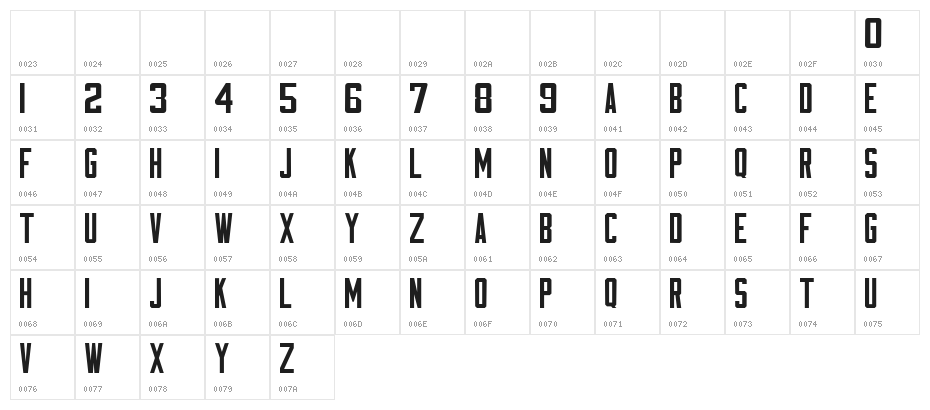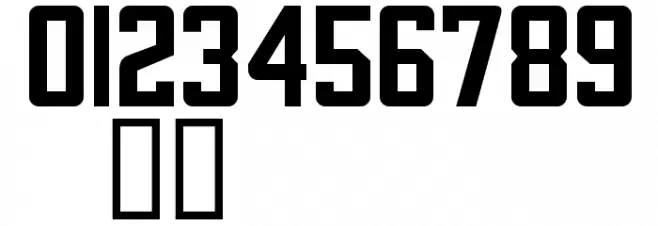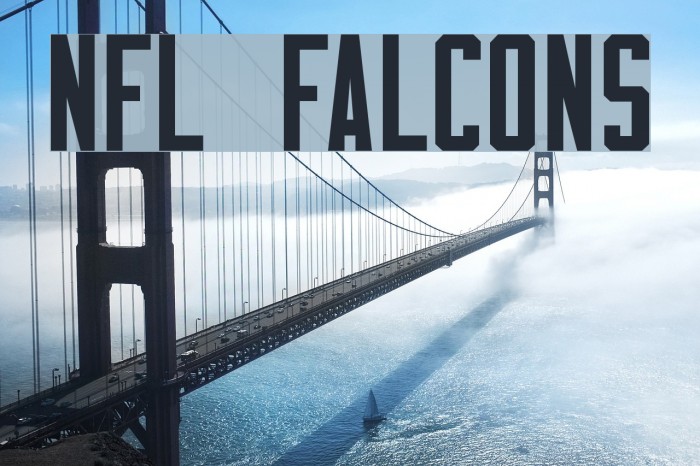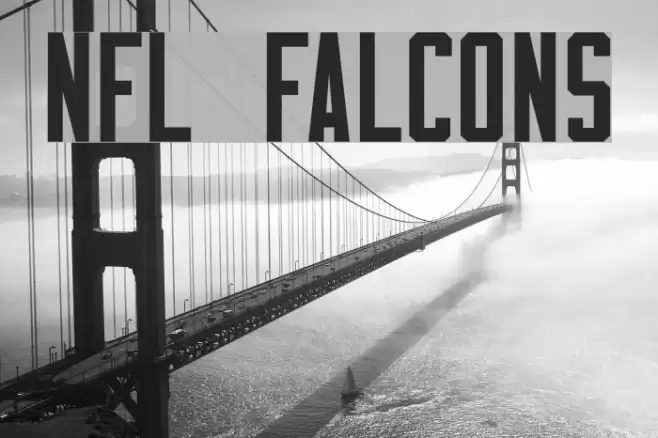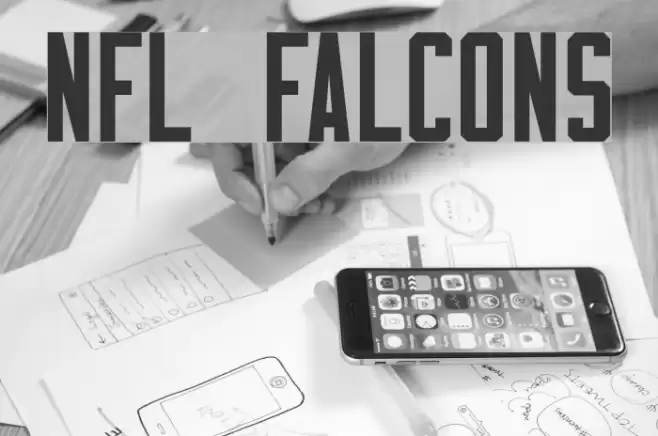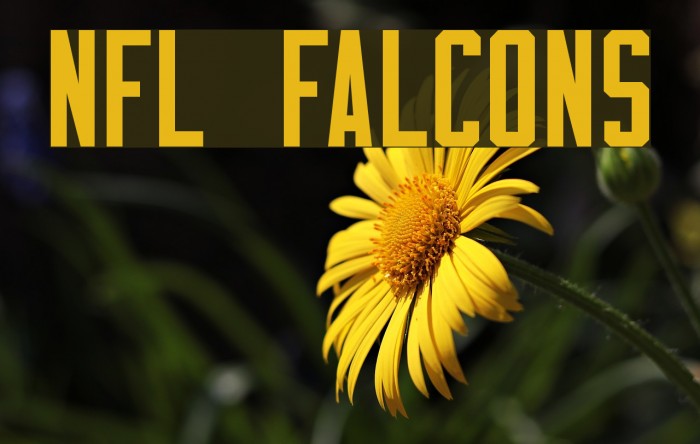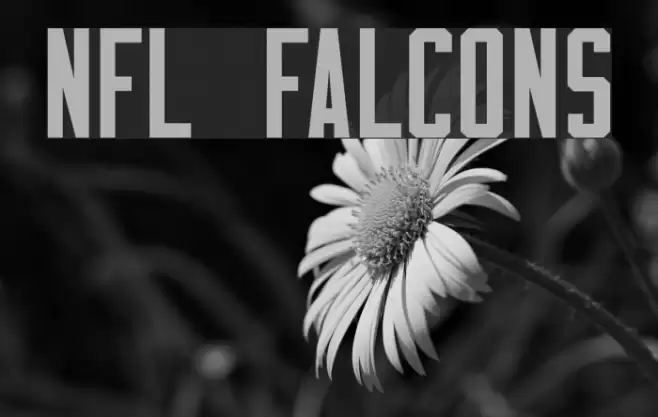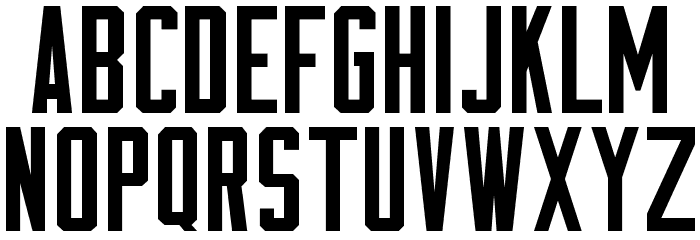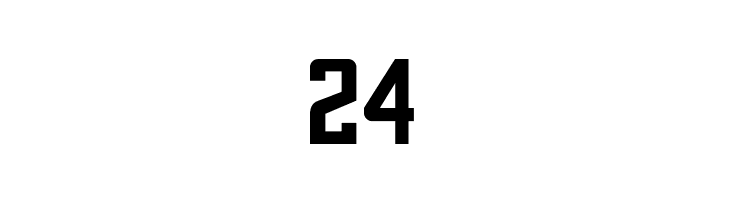
NFL Falcons Font
NFL Falcons Description
This font features a bold and impactful design with strong geometric shapes and a modern aesthetic. The uppercase letters are tall and narrow, with sharp angles and clean lines that convey a sense of strength and precision. The numbers are equally bold, maintaining the same geometric style, which makes them highly legible and suitable for display purposes. The font lacks lowercase letters and special characters, focusing on delivering a powerful visual impact through its uppercase and numeric characters. The overall design is reminiscent of sports or team branding, making it ideal for projects that require a bold and assertive typeface.
| Proposed Projects | Ideal for sports team branding, merchandise, posters, and headlines that require a strong visual impact. |